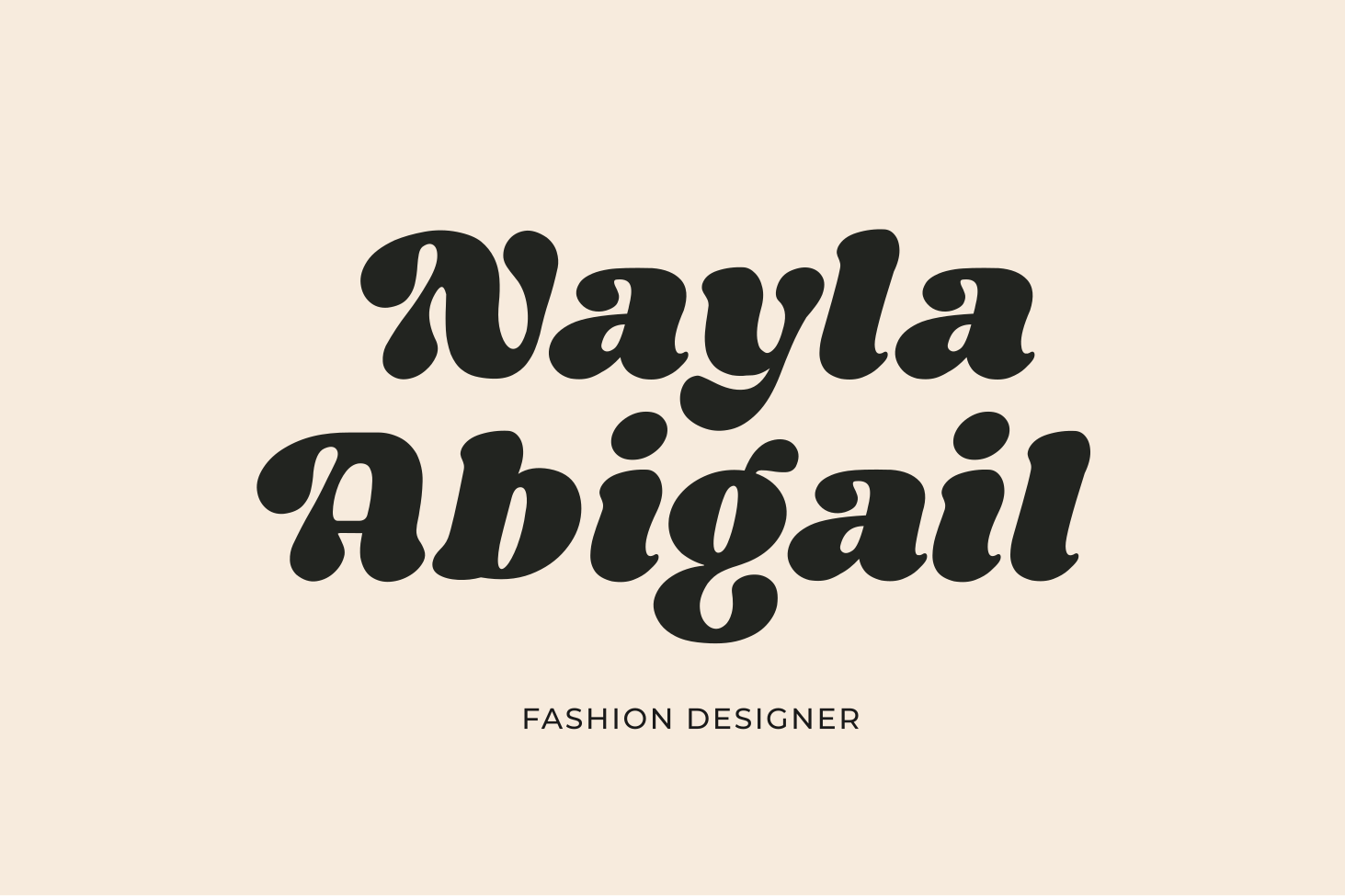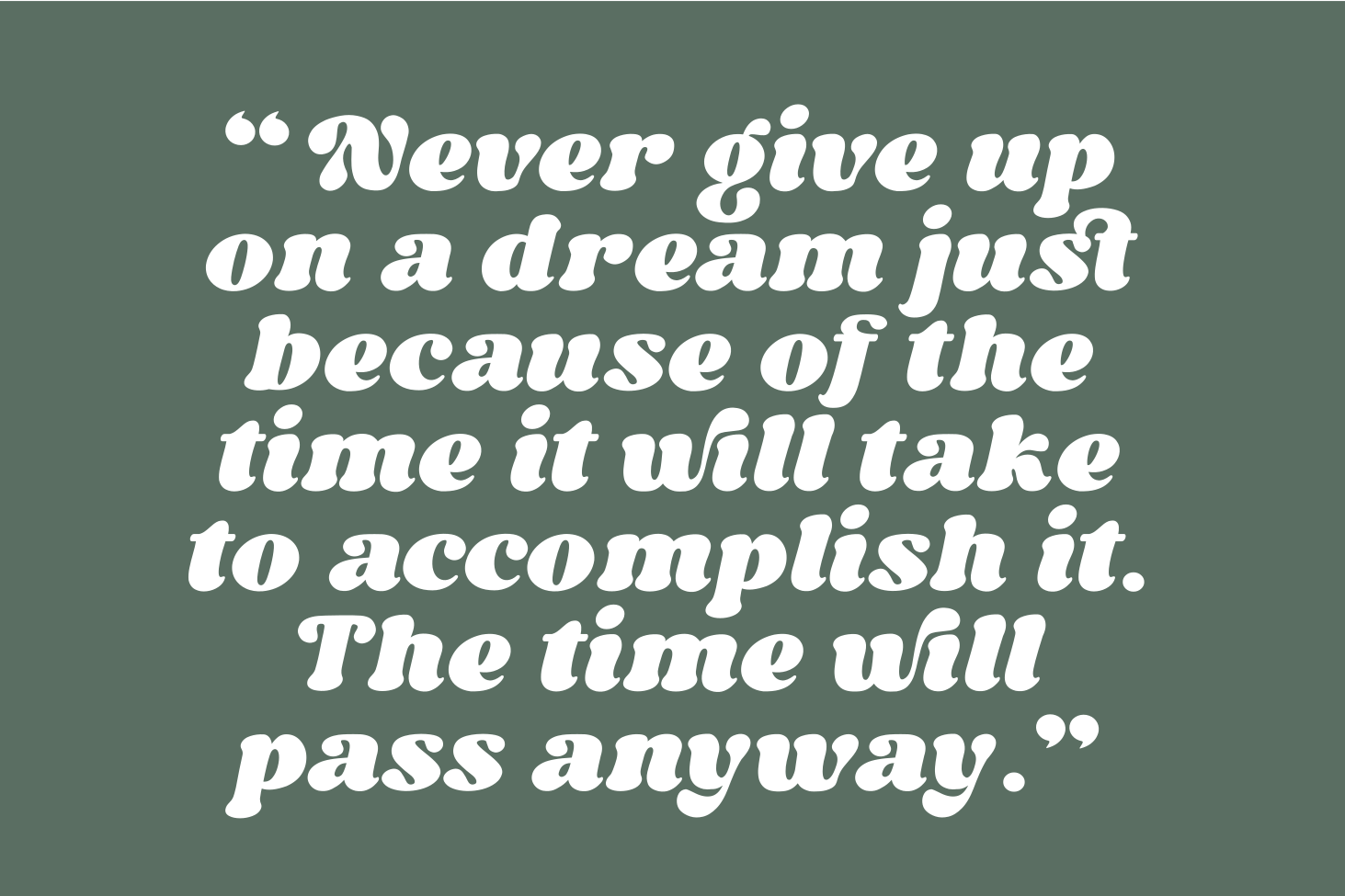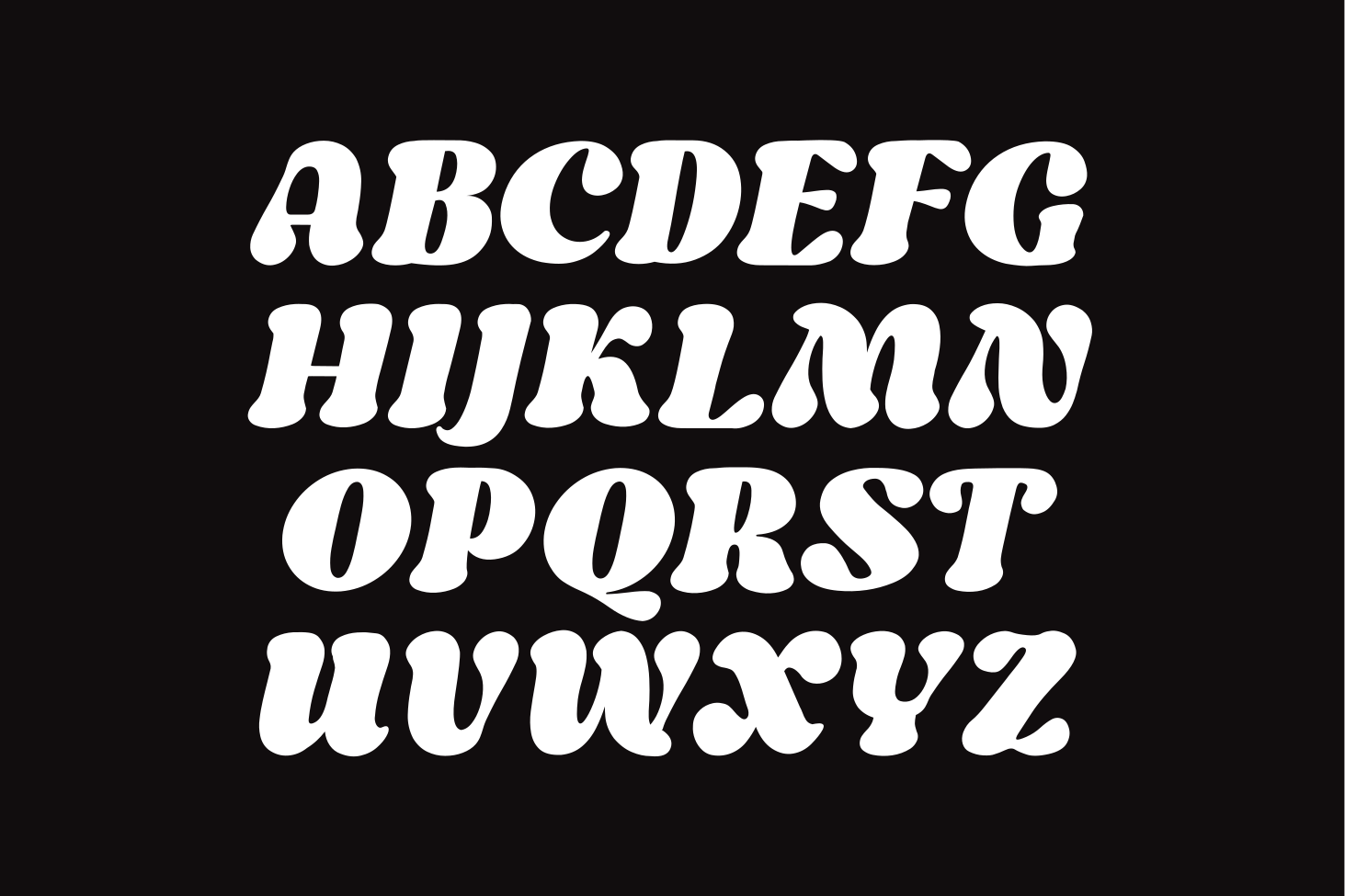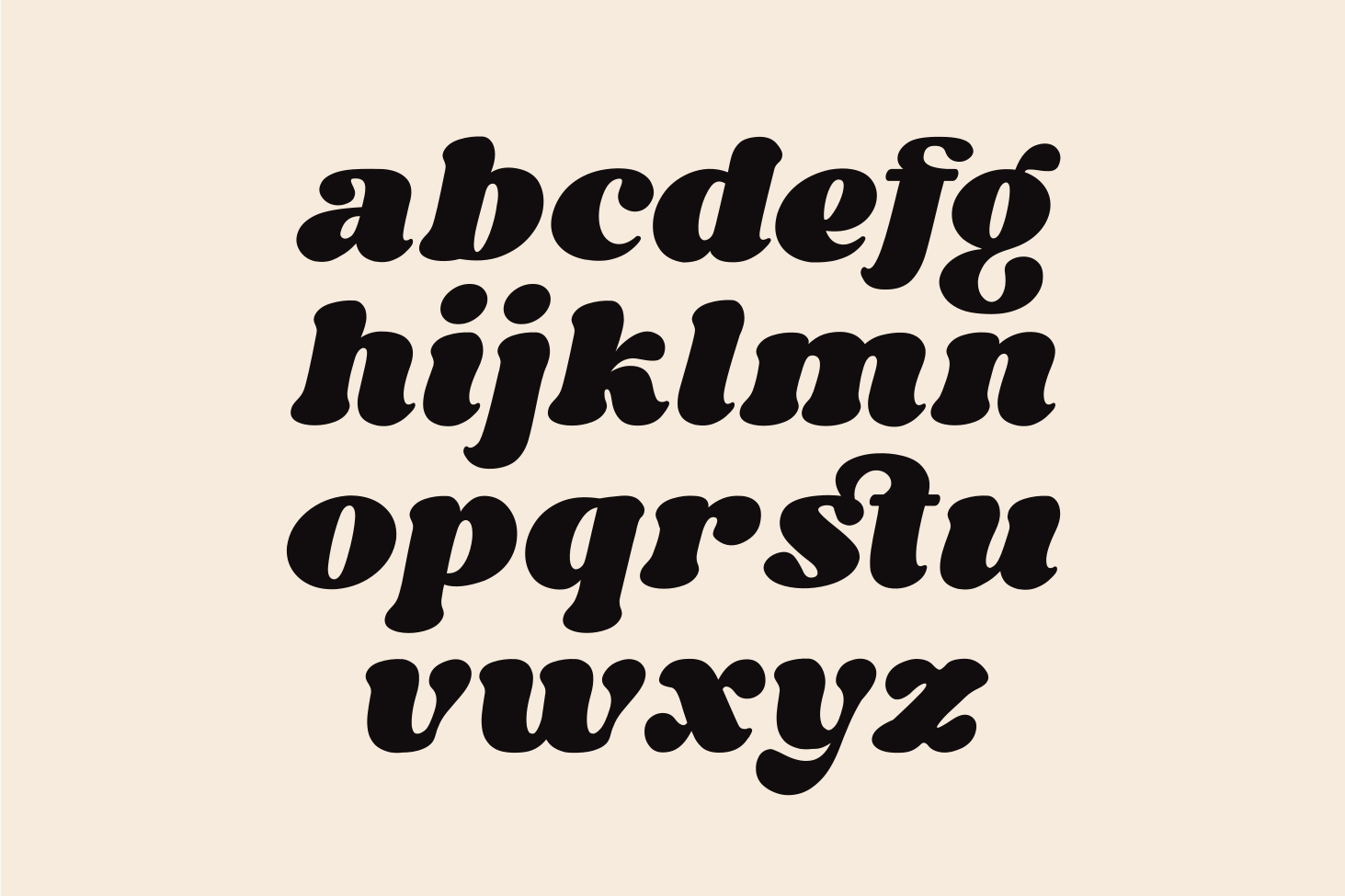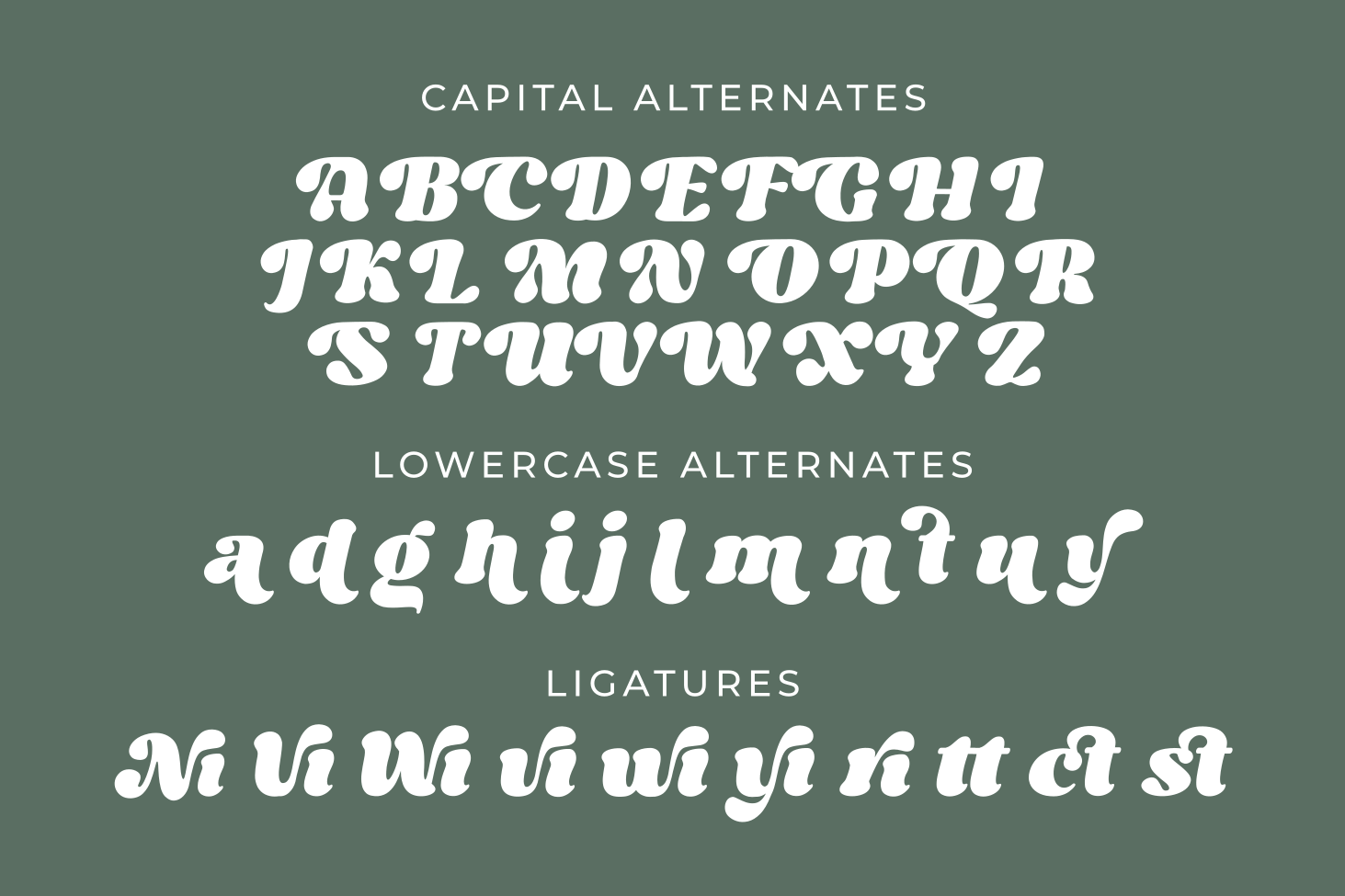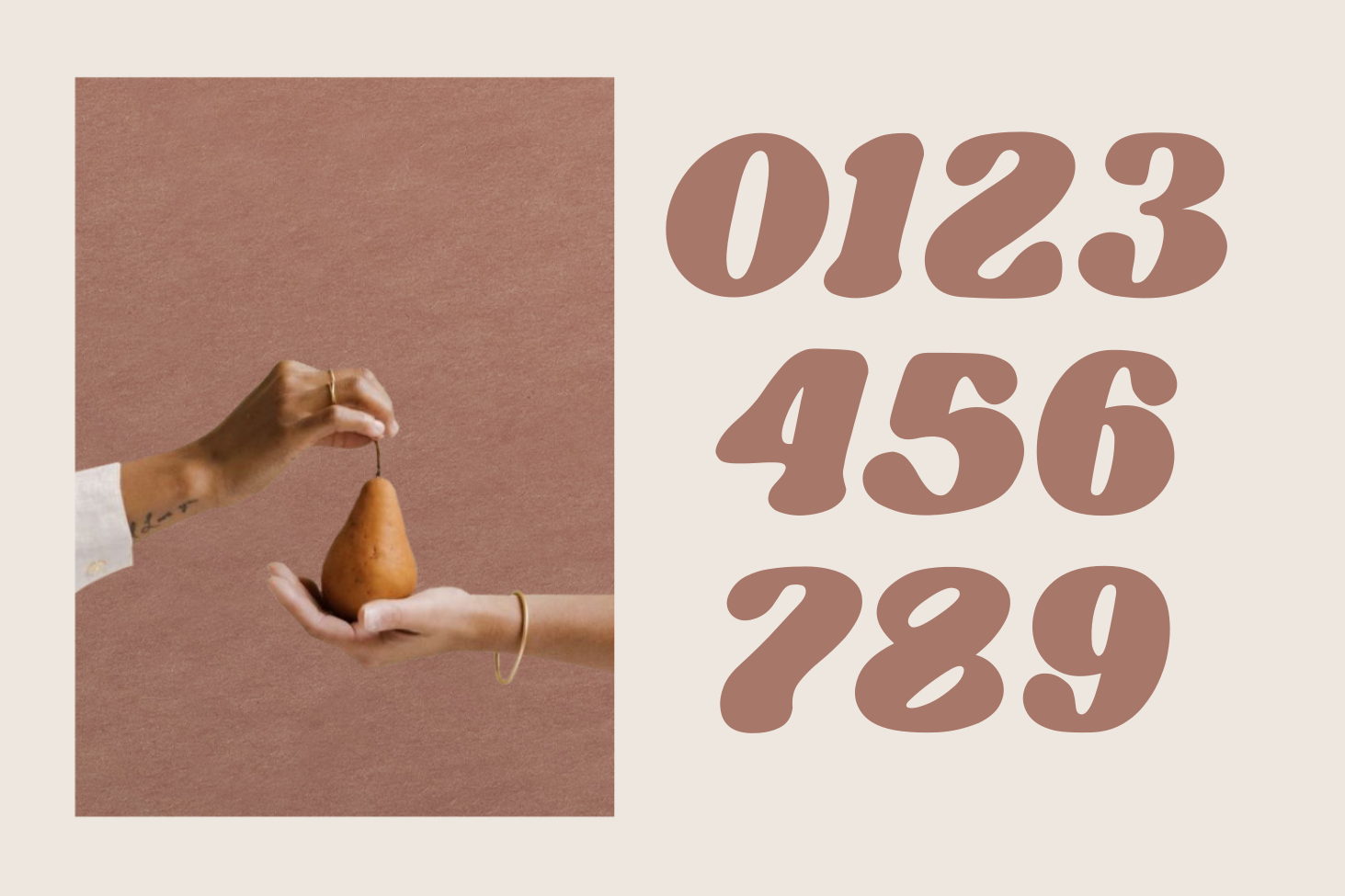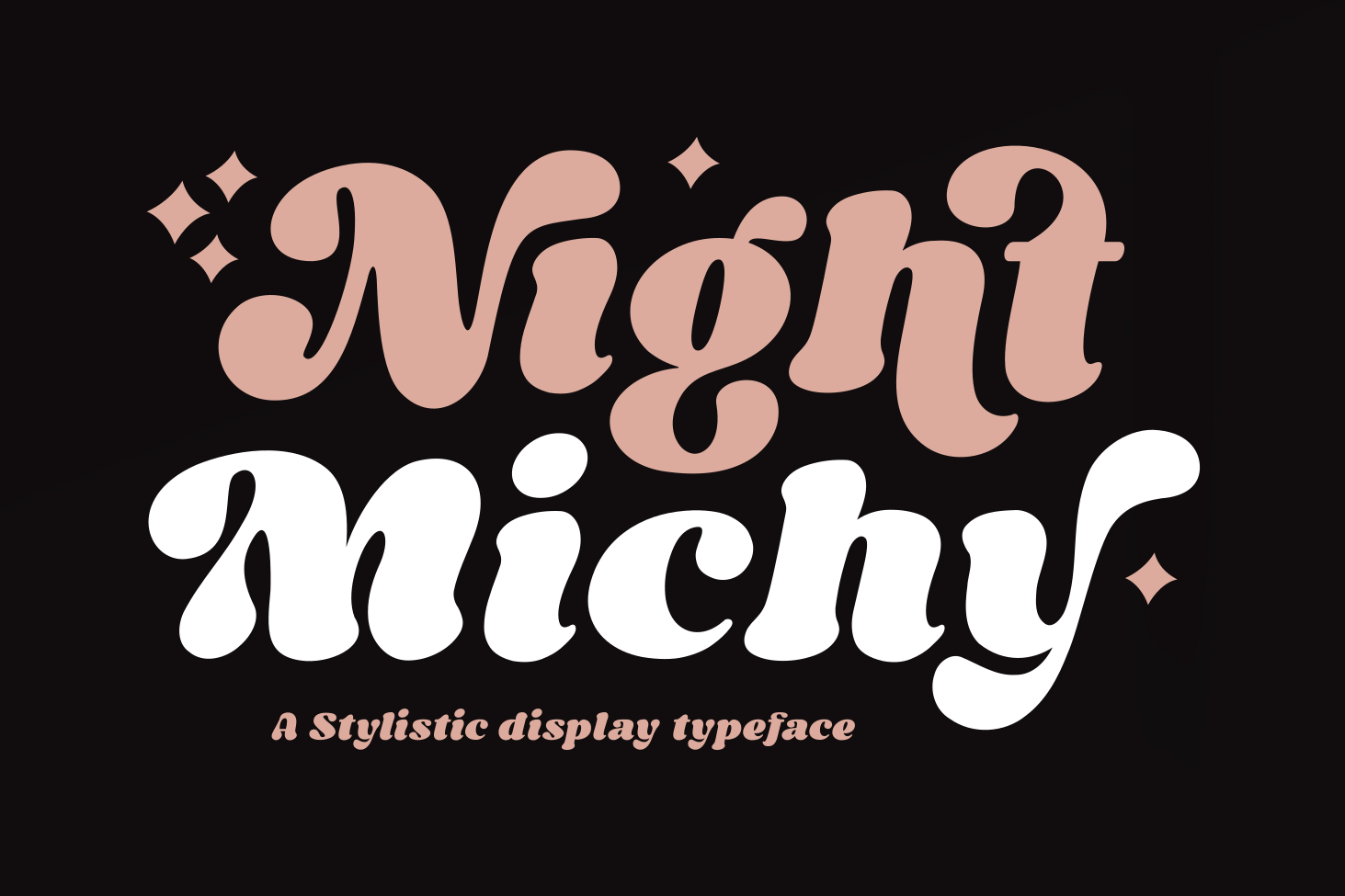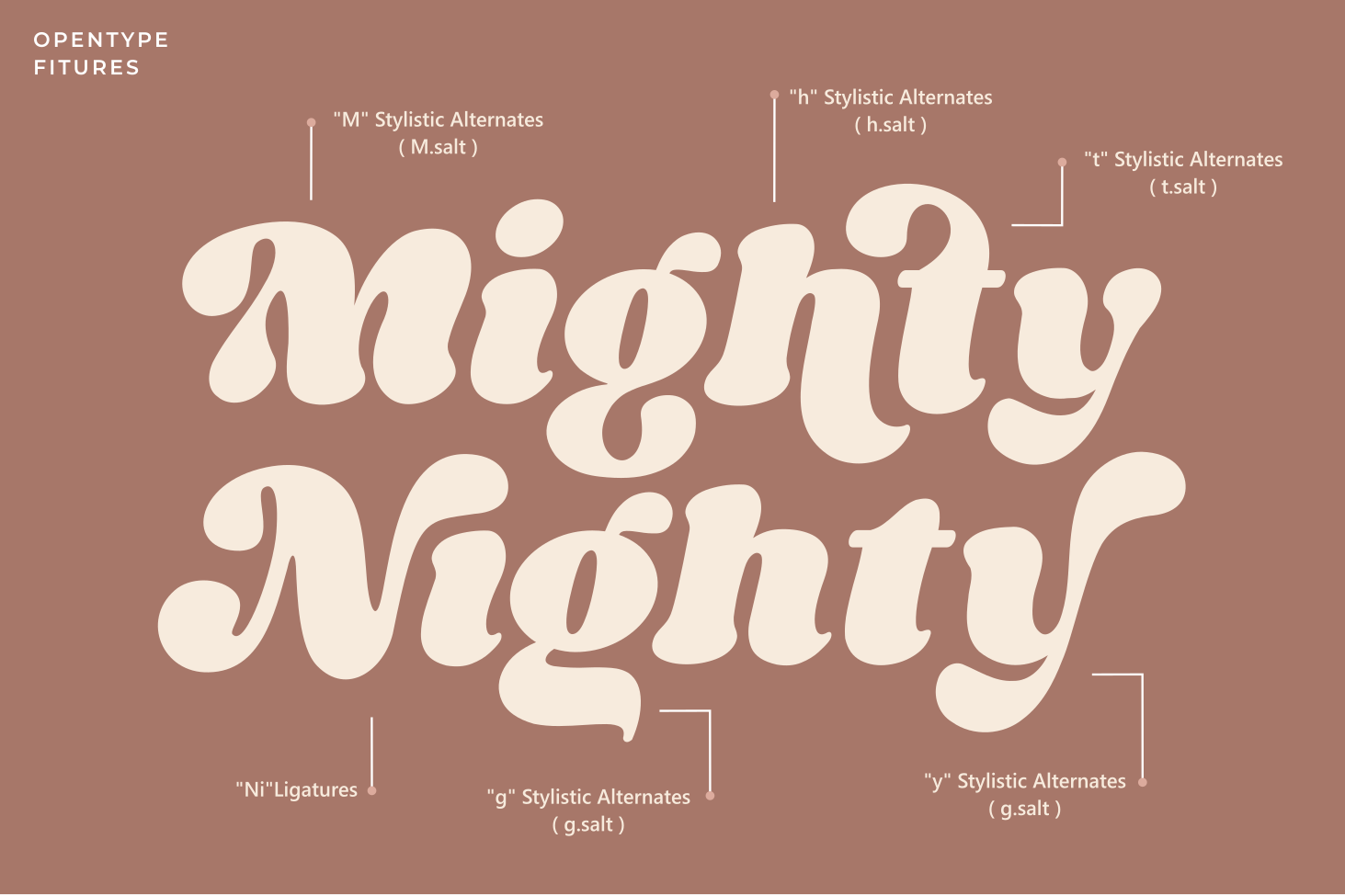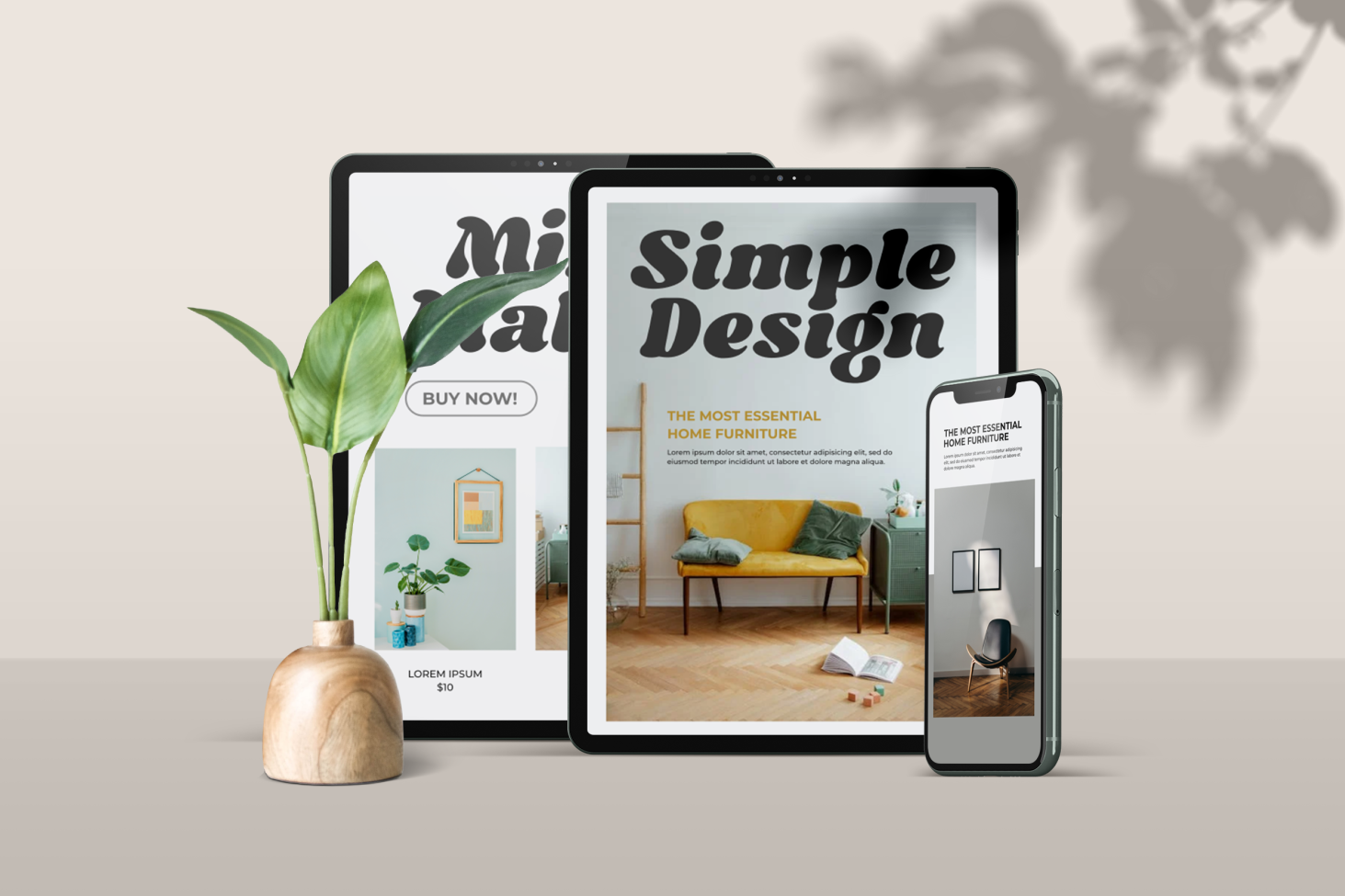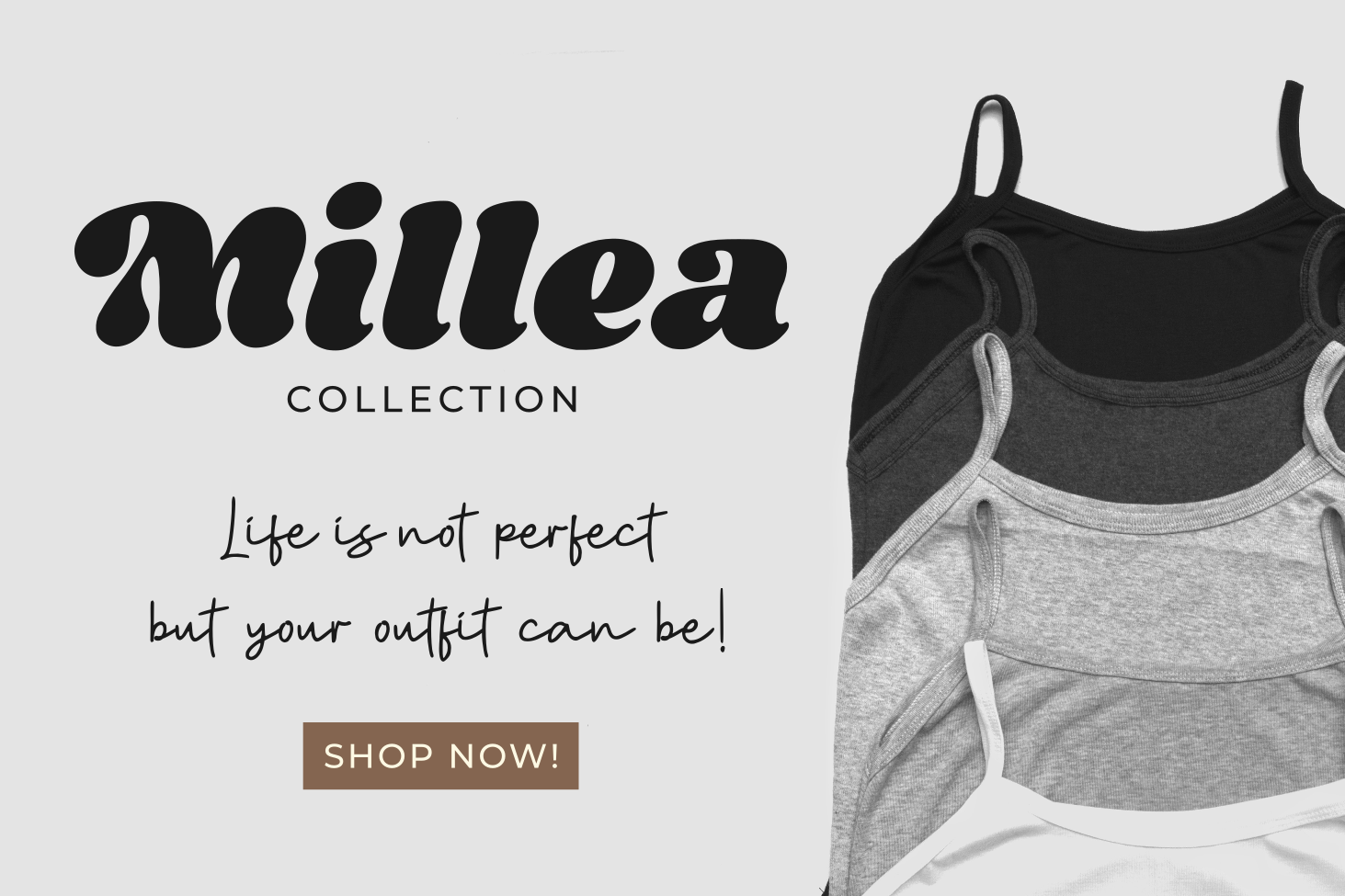
Night Michy
Night Michy by zeenesia is a Bold vintage style serif font with strong character and soft features. modern and classic serif font with a clear and bold look. It’s a very versatile font that works great in large.